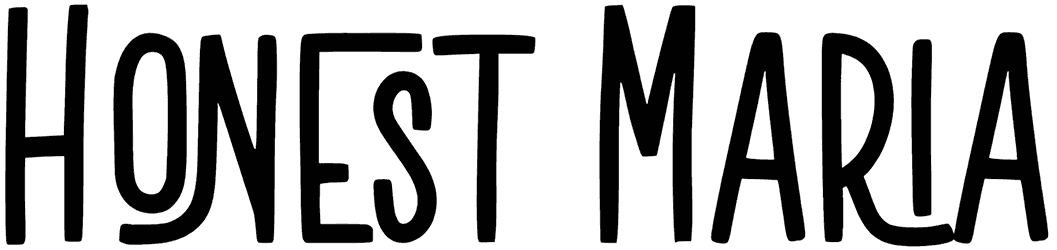
Honest Maria Font
As a beautiful and minimal handwritten font, this item can be used for many creative designs. Honest Maria font has a modern and sweet style, and with its matchable mood, you can set it on various titles. There is no offer for lowercase letters, but Honest Maria will serve as a nice illustration for posters, book covers, packaging, and so on.